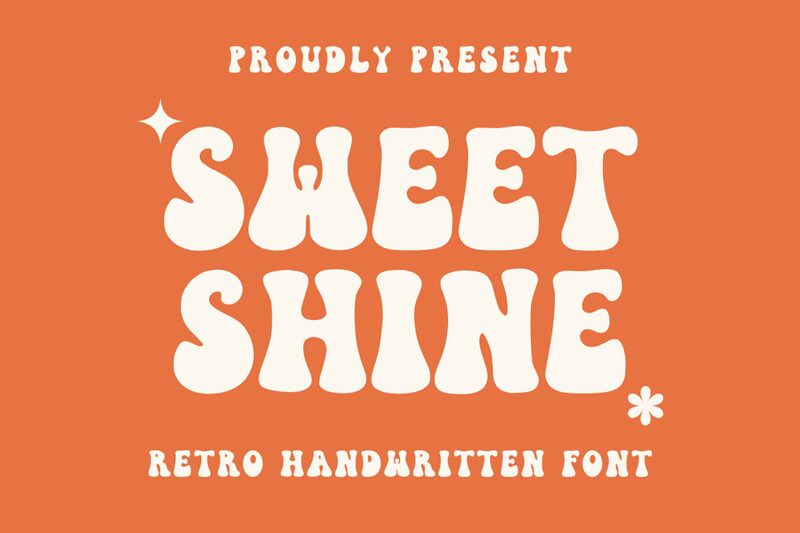
Sweet Shine font family by Muhammad Yafinuha is a free groovy typeface that evokes nostalgia for the 60s and 70s. The letters are playful, lively, and immediately eye-catching as they add a unique character to any design work. The family contains two incredible font styles that pair well when used together.
Use it to standout your headlines, quotes, social media posts, branding, packaging, and clothing designs. Books, magazines, and album covers will also achieve the look you are dreaming of with this free font. Let it shine on your labels, envelopes, invitations, posters, and banners.